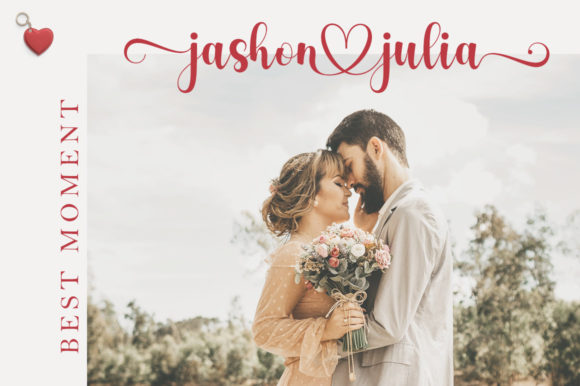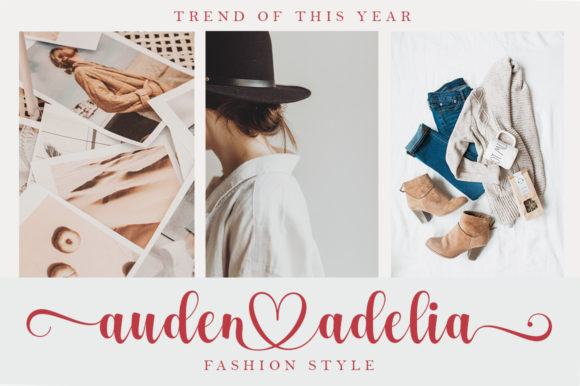
Hey Julia Font
db-ku.com - Script & Handwritten -- Hey Julia is a lovely and delicate script font that exudes elegance and class. This font is PUA encoded which means you can access all glyphs and swashes with ease!